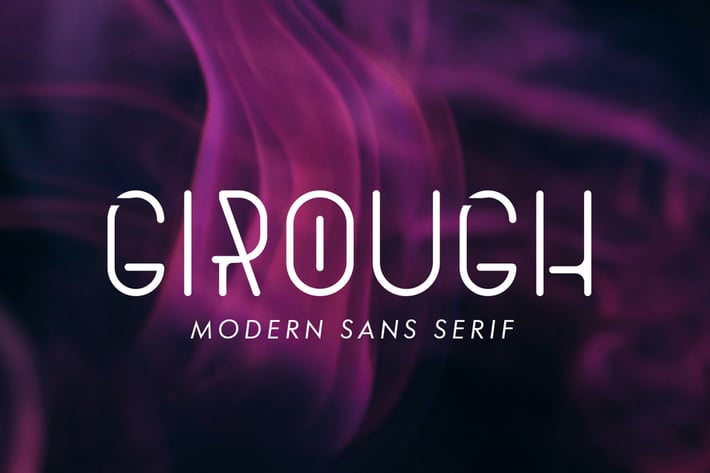
Girough - Modern Sans Serif Font
Girough is a sans based font with unique lowercase that will make your design looks futuristic and modern. You can use this font for any purpose, especially to make logotype.